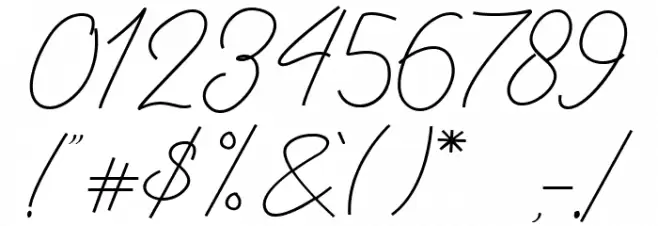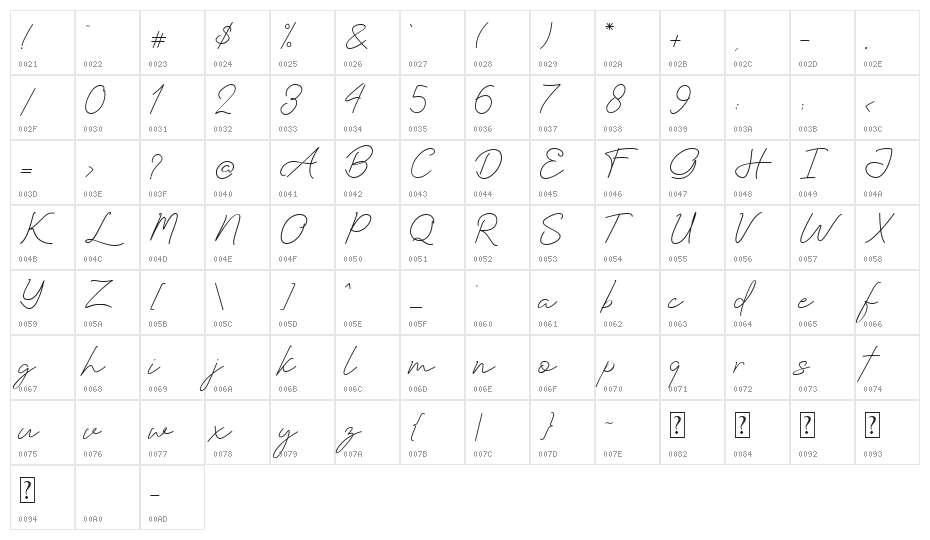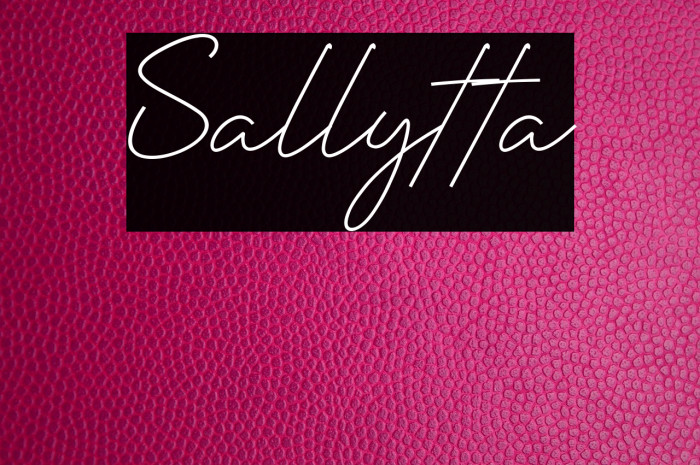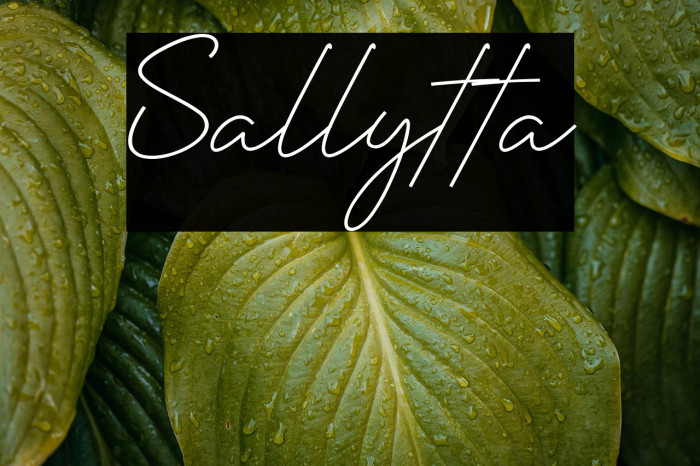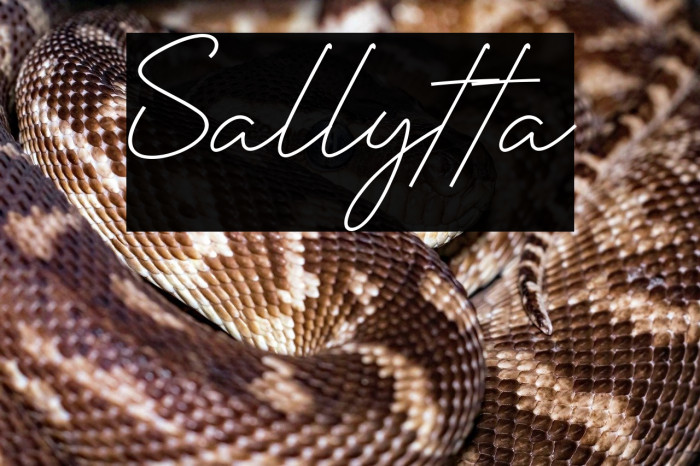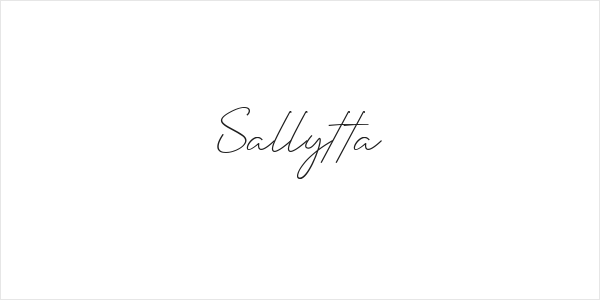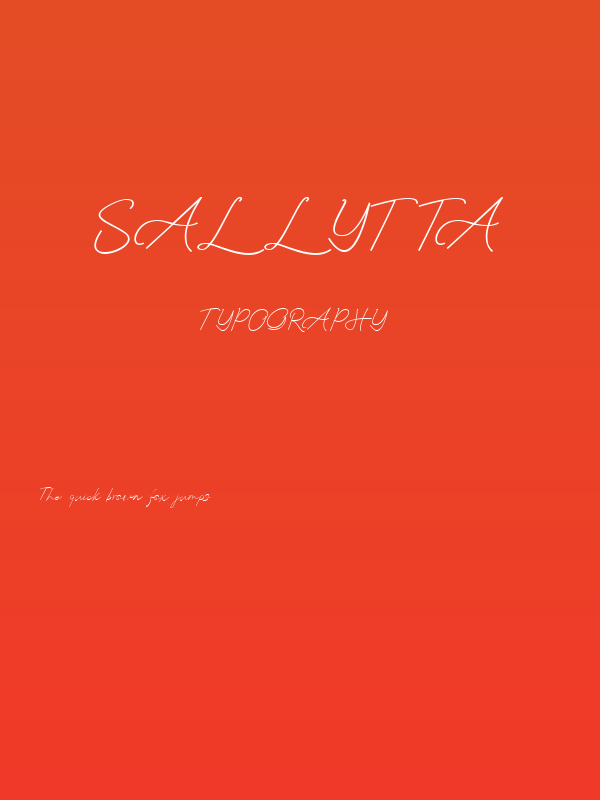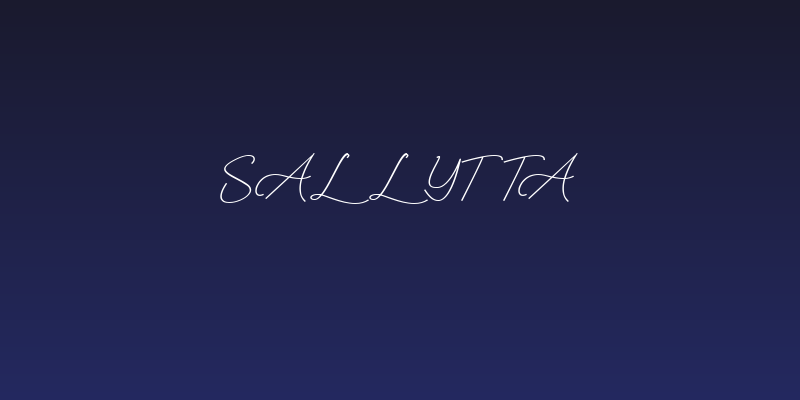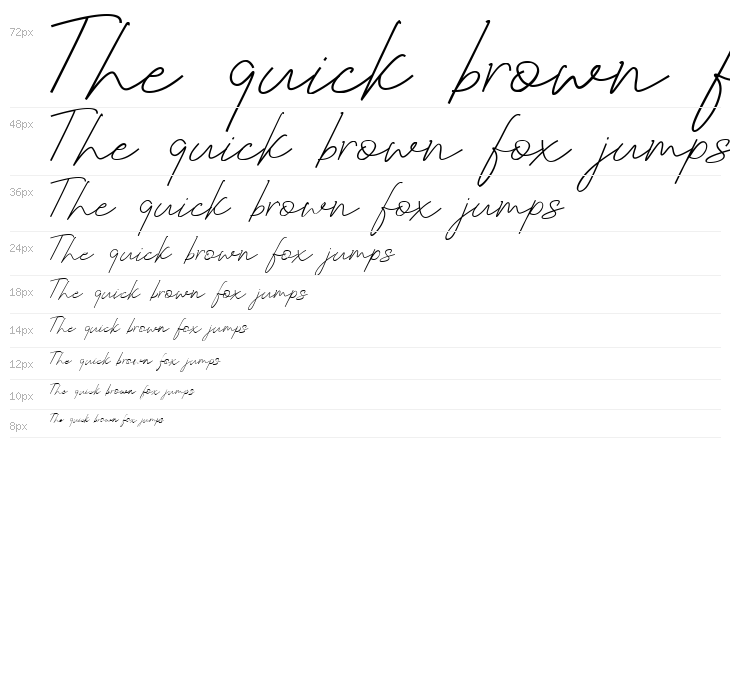
Sallytta Font
Sallytta Description
This elegant script font features a fluid and graceful design, characterized by its smooth, flowing lines and delicate curves. The uppercase letters exhibit a sophisticated flair, with each character seamlessly connecting to the next, creating a harmonious and cohesive appearance. The lowercase letters maintain this fluidity, offering a natural handwritten feel that is both stylish and approachable. The numerals and special characters are crafted with the same attention to detail, ensuring consistency throughout the typeface. This font's refined aesthetic makes it ideal for projects that require a touch of elegance and sophistication.
| Use Case | Logos, Invitations, Personal stationery |
| Proposed Projects | Ideal for wedding invitations, elegant branding, personal stationery, and upscale packaging. |